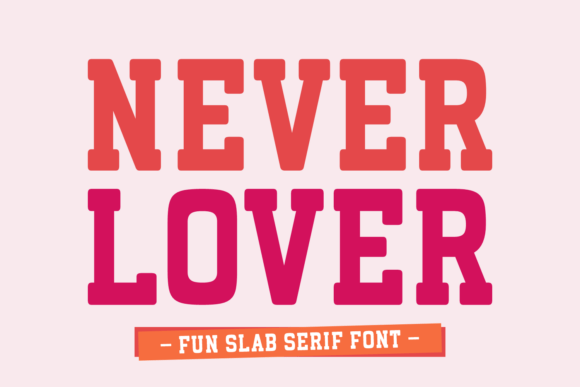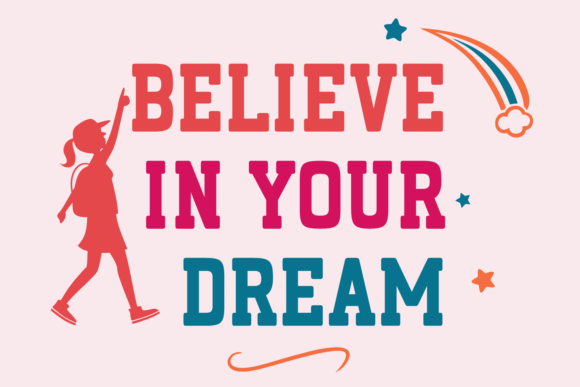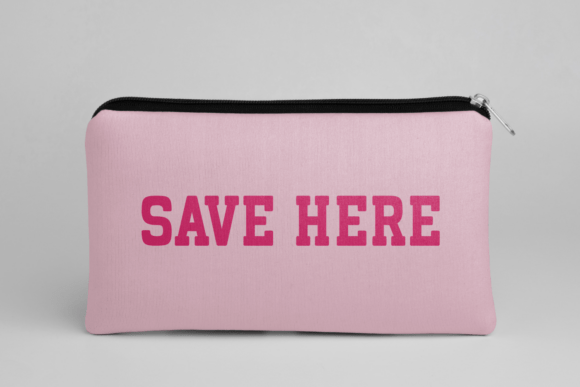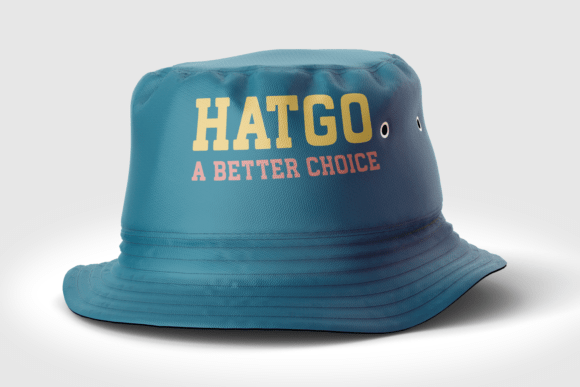
Never Lover Font
About the Never Lover Font
Welcome to the world of Never Lover Font, a typeface that will inspire your next great project. Never Lover is a unique blend of Slab Serif font style that isn’t confined to one particular application. Whether you’re a professional sports team needing a bold and gripping font, a college looking to represent scholarly excellence, or a company ensuring your branding stands out, Never Lover is the perfect blend of strength and elegance.
Its enticing reshapes the way your texts appear, making every application uniquely captivating be it on a poster, sporting jersey, book cover or promotional material. Its characteristically fun yet modern touch stamps a memorable visual imprint, intricately infusing a dash of splendor across all genres of design.
Never Lover Font Usage Examples
Never Lover Font Example